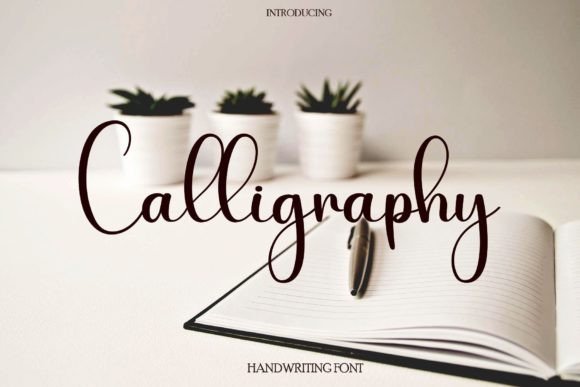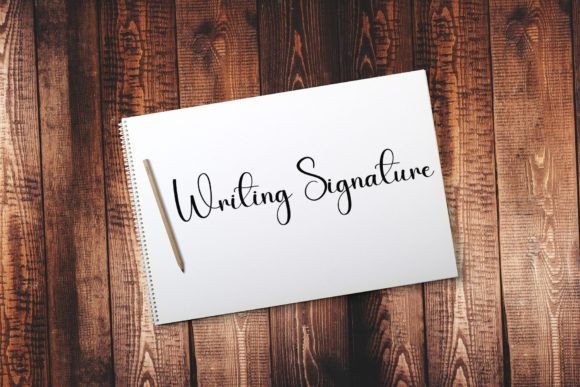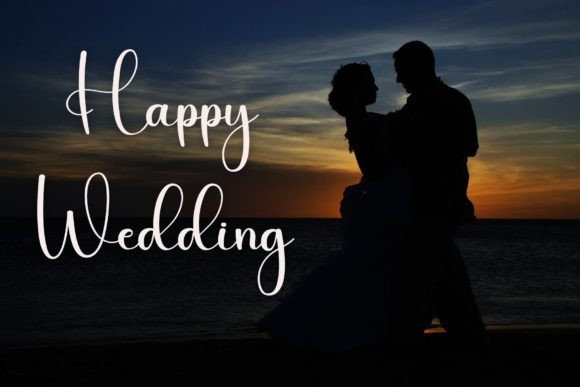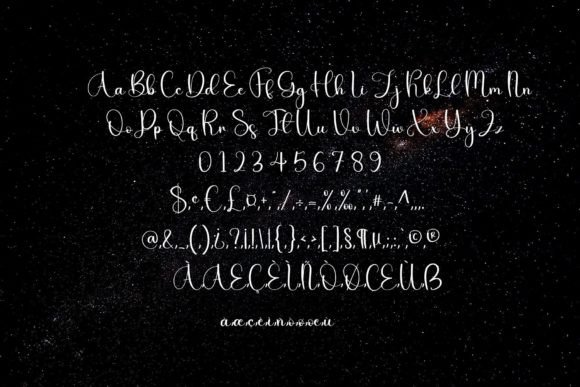
Calligraphy Font
About Calligraphy Font
“Calligraphy” is a flowing handwritten font that embodies an elegant touch, making it perfect for a wide range of design projects. Its smooth and graceful letterforms create a sense of sophistication and timeless beauty, adding a touch of luxury to your creative endeavors. Whether you’re working on invitations, branding, logos, packaging, quotes, or any other project, “Calligraphy” enhances the overall aesthetic with its distinct and elegant style.
The font’s flowing and delicate strokes give it a sense of fluidity, allowing it to effortlessly adapt to various design contexts. Its timeless style ensures that it remains relevant and visually appealing for a long time, making it a valuable asset to any designer’s toolkit. “Calligraphy” adds a touch of class and refinement to your text, making it suitable for both formal and creative applications.
Incorporating “Calligraphy” into your designs allows you to create spectacular and visually stunning compositions. Its elegant and timeless style captures the essence of classic calligraphy, making it ideal for projects that require a touch of sophistication. Whether you’re designing elegant event invitations or crafting high-end branding materials, “Calligraphy” elevates your designs to a level of unparalleled elegance and beauty.
Fall in love with the distinct and timeless style of “Calligraphy,” and let it inspire your creativity. Its flowing and elegant touch creates a sense of luxury and sophistication, making your designs truly spectacular. With “Calligraphy,” your projects are bound to exude class and refinement, leaving a lasting impression on your audience.